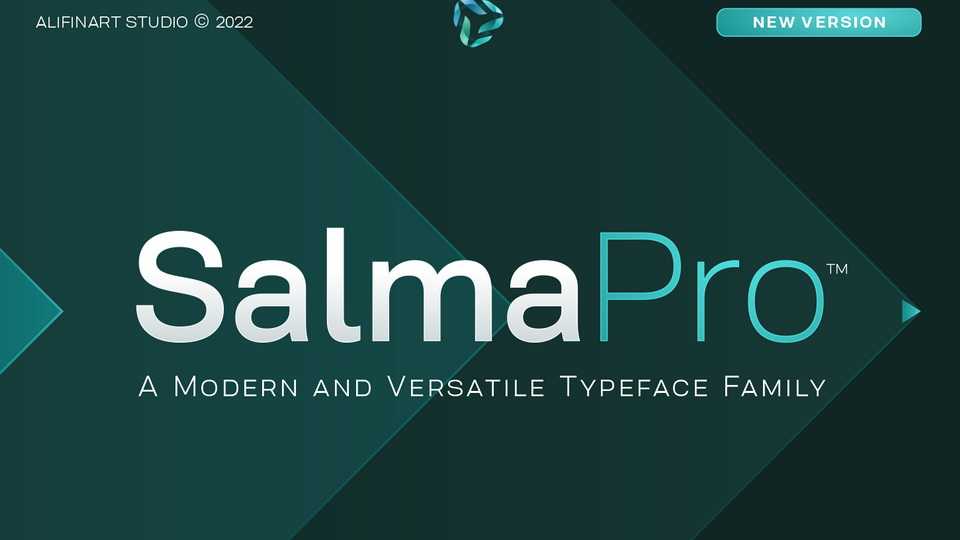
Download Salma Pro font, a modern sans serif typeface with a new design and strong character. Salma Pro is a multipurpose font that has a unique design, made with great passion and conscientiousness.
Designer: Alifinart Studio